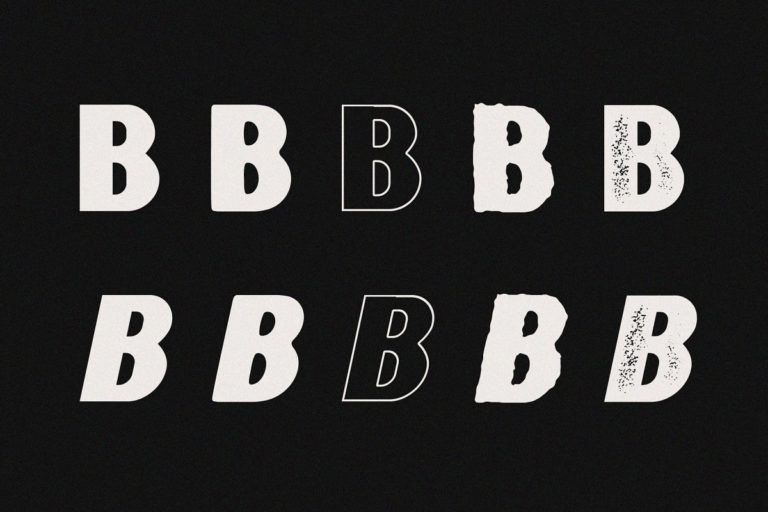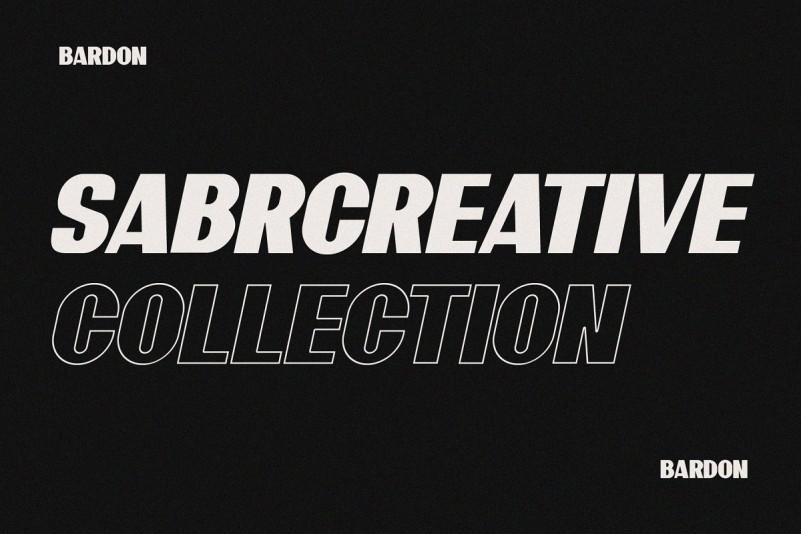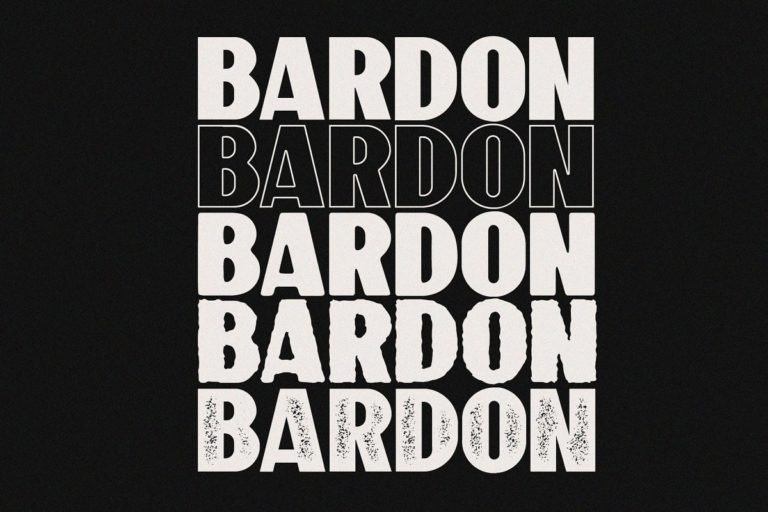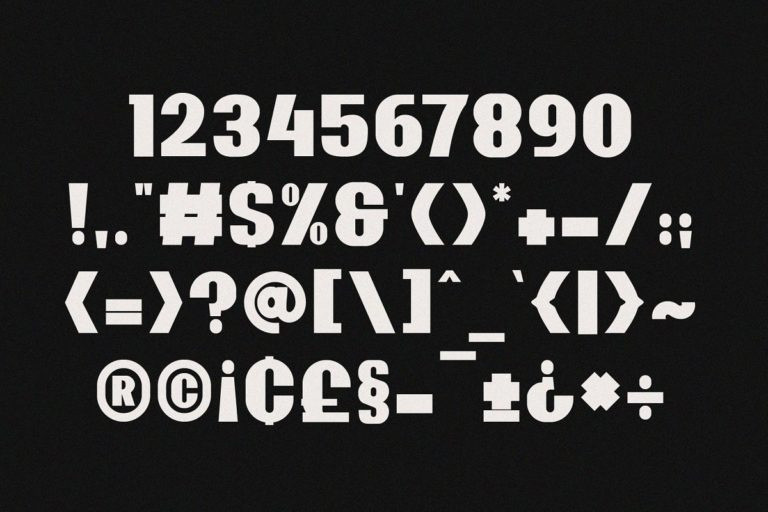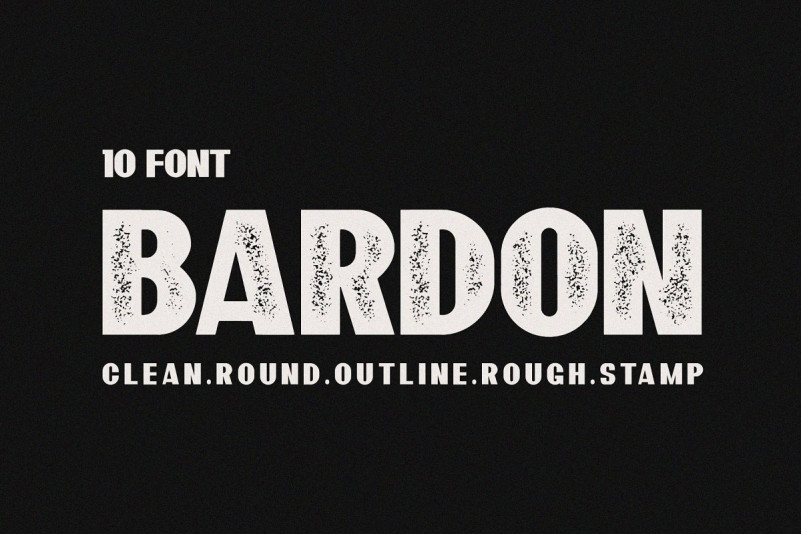
Bardon Font Family
Say Hello Guy’s. Thank you for looking Bardon Vintage Family. This is a Sans serif font family with 10 Style Fonts. It’s designed and shared by Sabr Creative. This is vintage sans serif typeface that comes with various stylistic alternates. This is perfect to sweeten up your headlines, branding visual identity, editorial, poster, and etc. That will make your presentation or logo even more stunning and stand out!